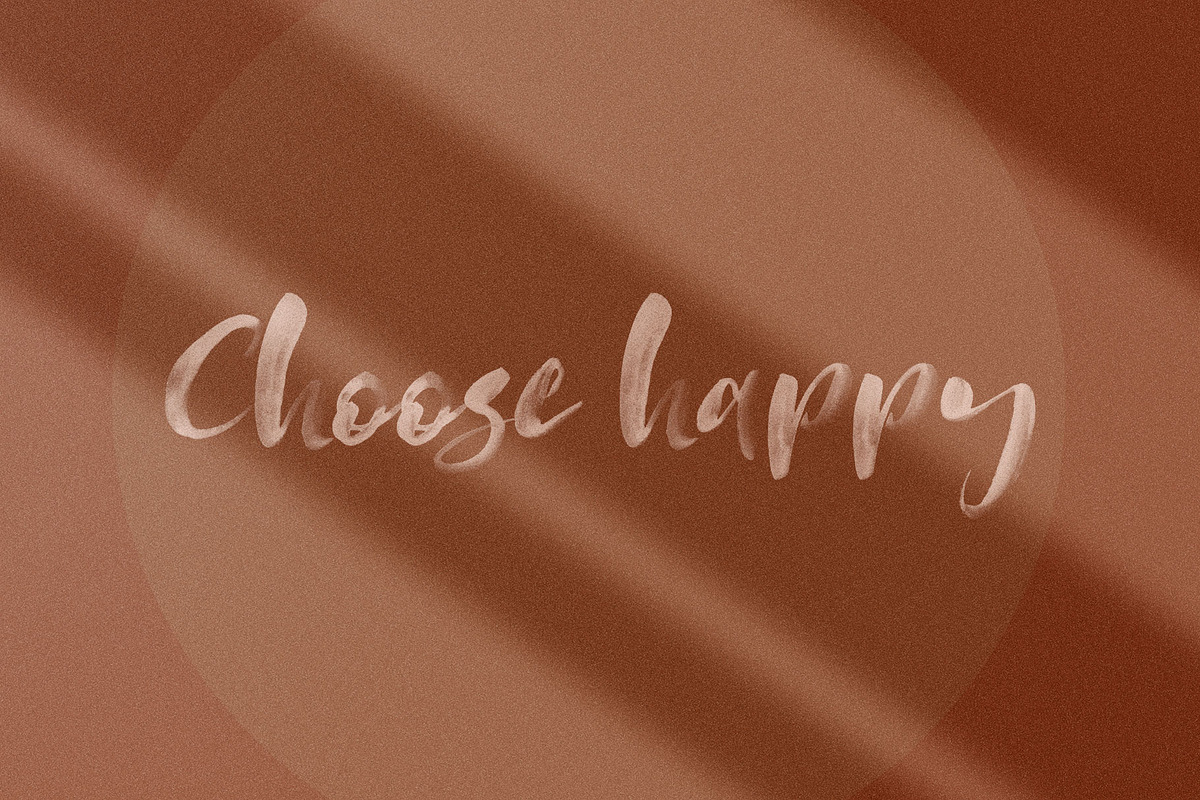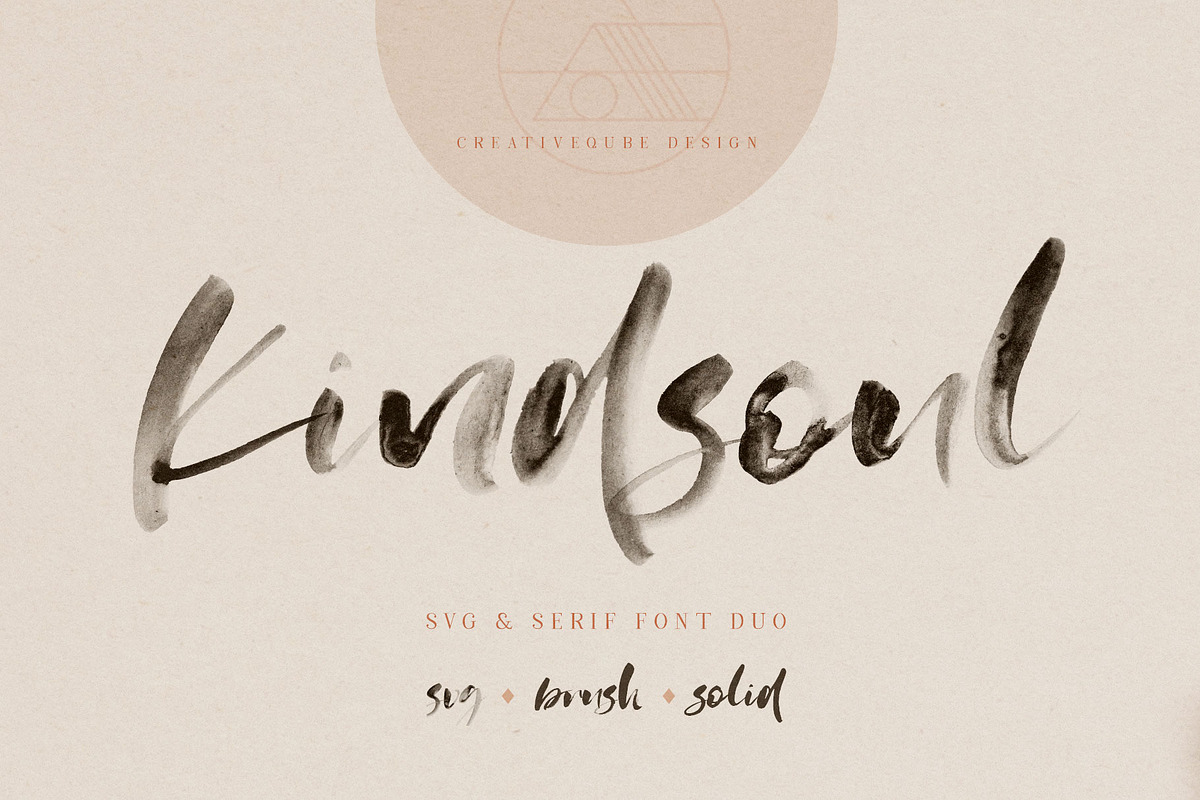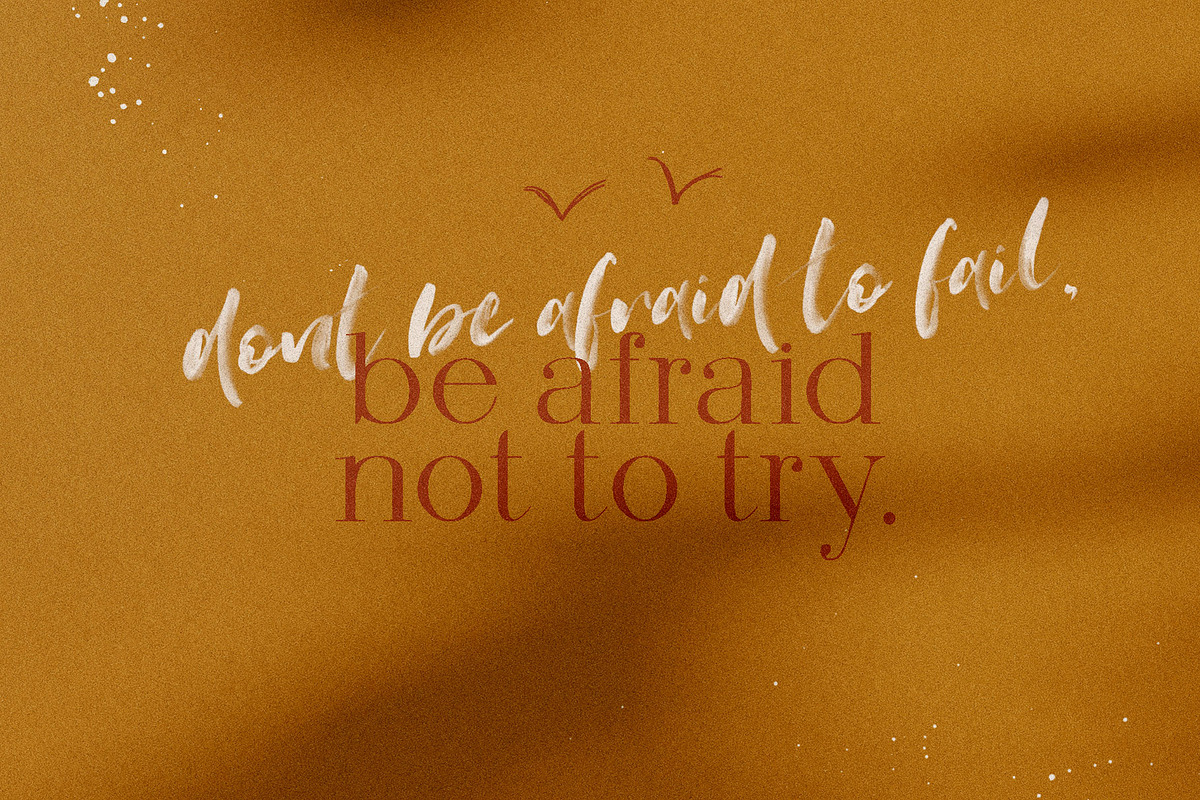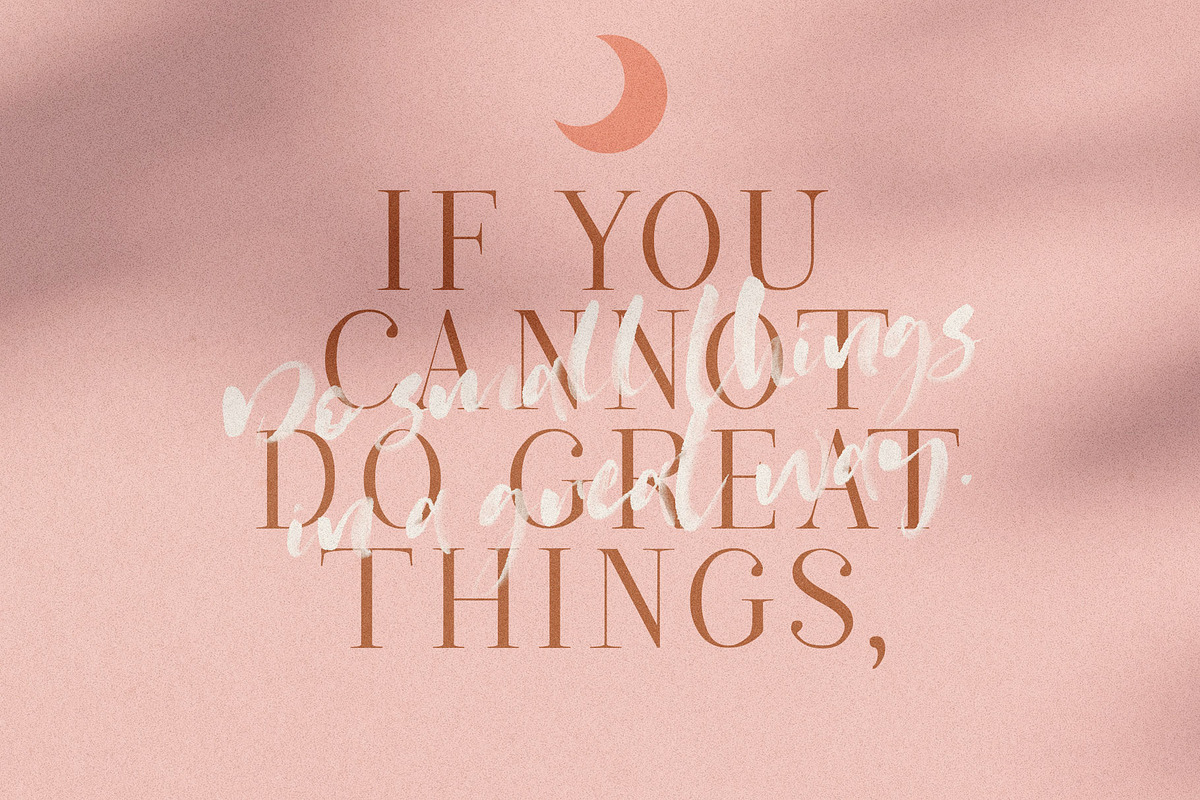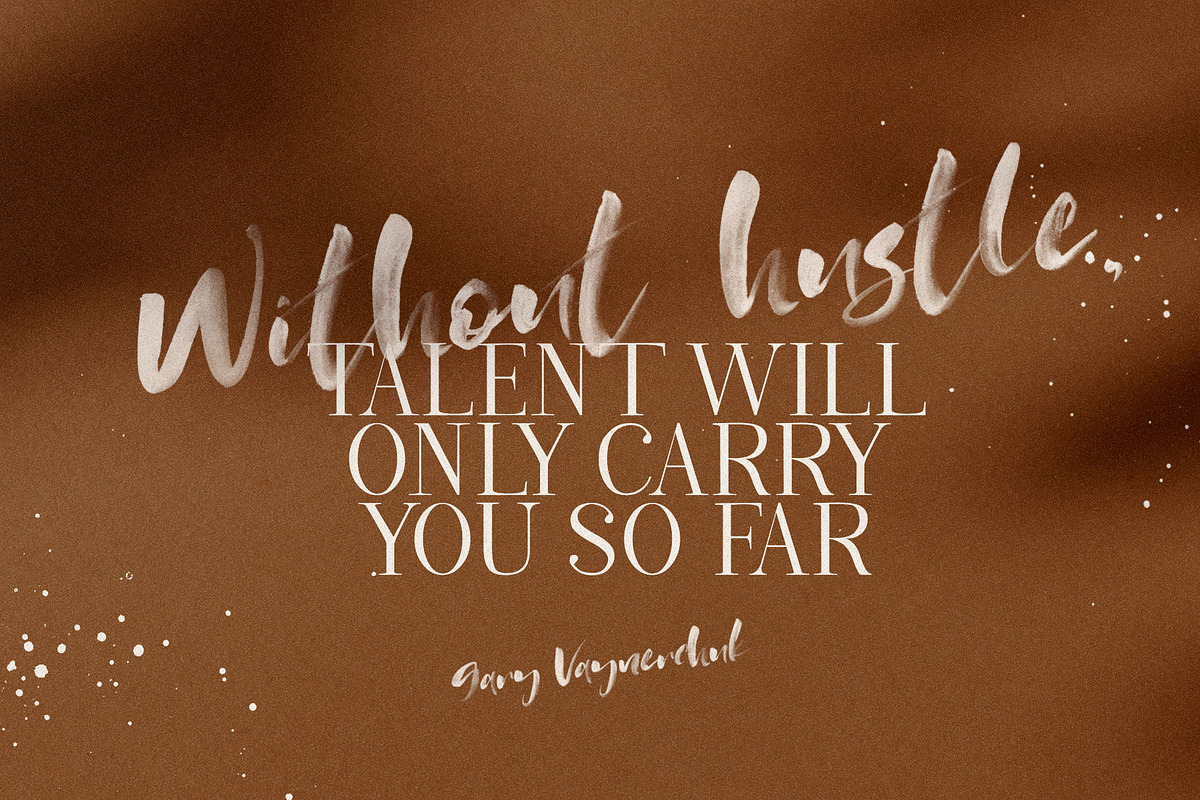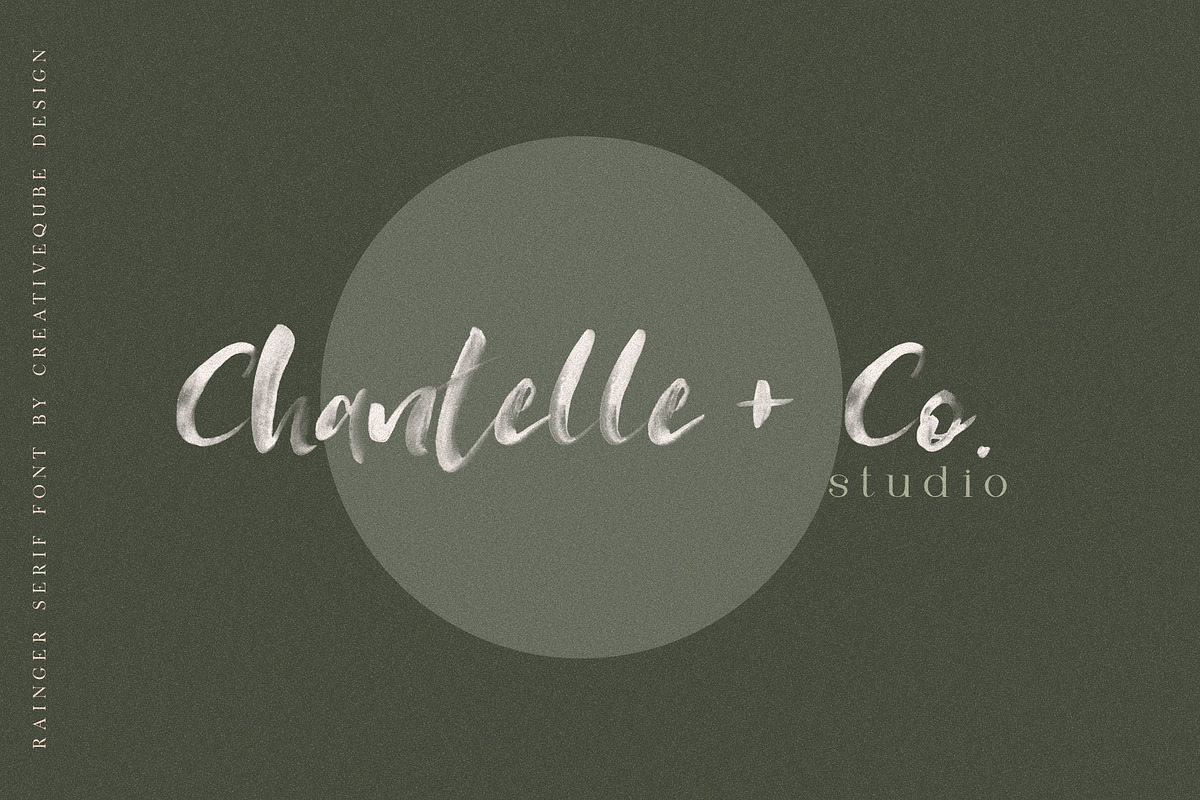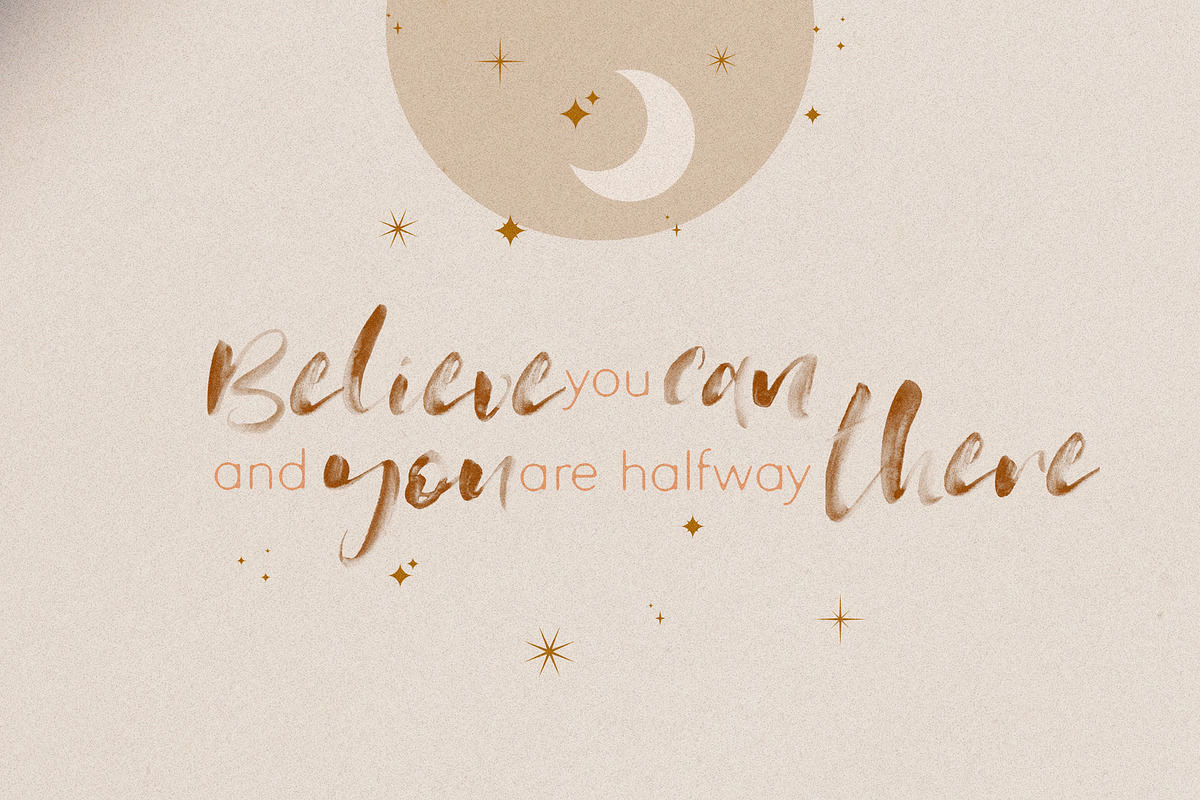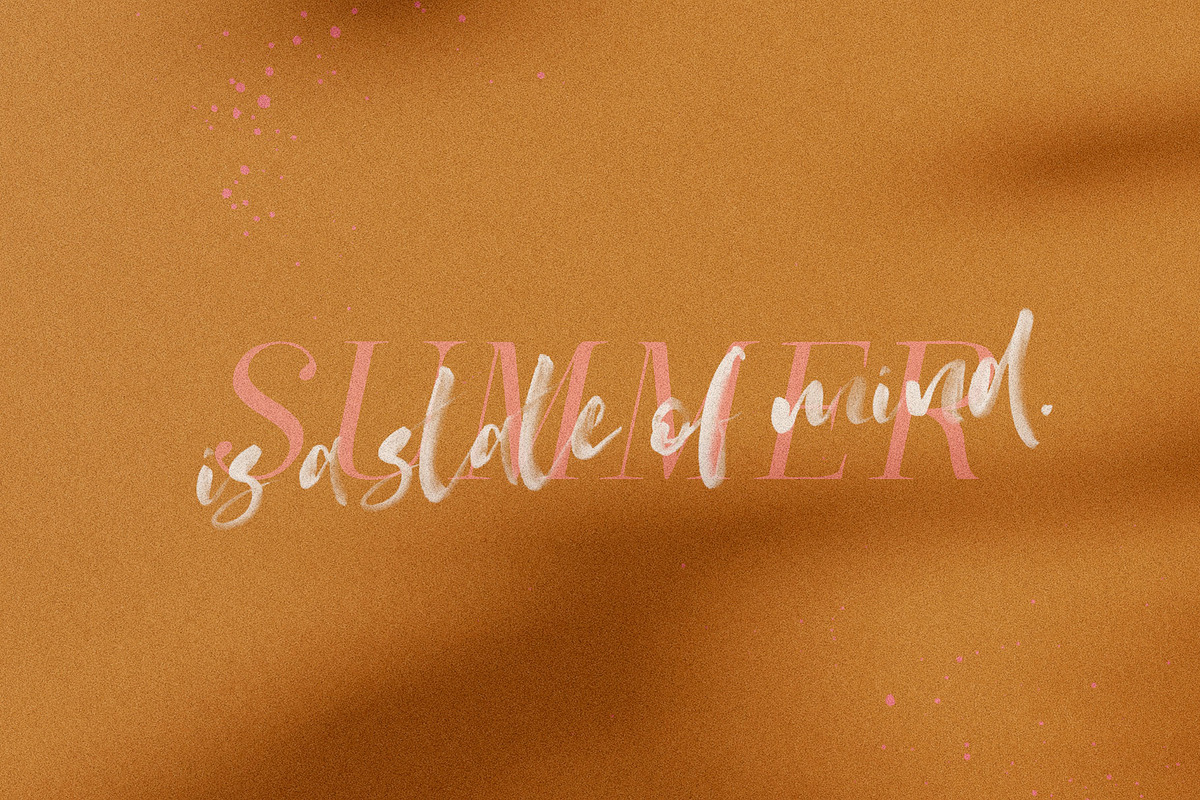
KindSoul SVG Script & Serif Font Duo
IntroducingKindsoul SVG Script font duo!
I'm so pleased to be announcing the newest font family - Kindsoul - An adorable pairing of a transparent hand painted watercolor SVG Script font and a classy smooth Serif font.
Kindsoul SVG To be used in Adobe Photoshop CC 2017 Or Adobe Illustrator CC 2018 (Or newer) for a beautiful transparent hand painted look.
Kindsoul Brush This is a textured normal TrueType font and can be used in any program that uses system fonts.
Kindsoul Solid This is a smoother form of the brush version, perfect for using with a cutting machine such as a Silhouette.
Kindsoul Serif This is a classy Serif Font with Upper and Lowercase characters. Pairs beautifully with the SVG and Brush versions.
Kindsoul Serif Heavy This is the heaviest version of the Serif Font.
Kindsoul Serif Bold This is the medium weight of the Serif Font .
Kindsoul Serif Italic This is the slant version of the Serif Font.
International Language The SVG font does not support international languages but all the accents are included in the Photoshop file so you can add them into your work.